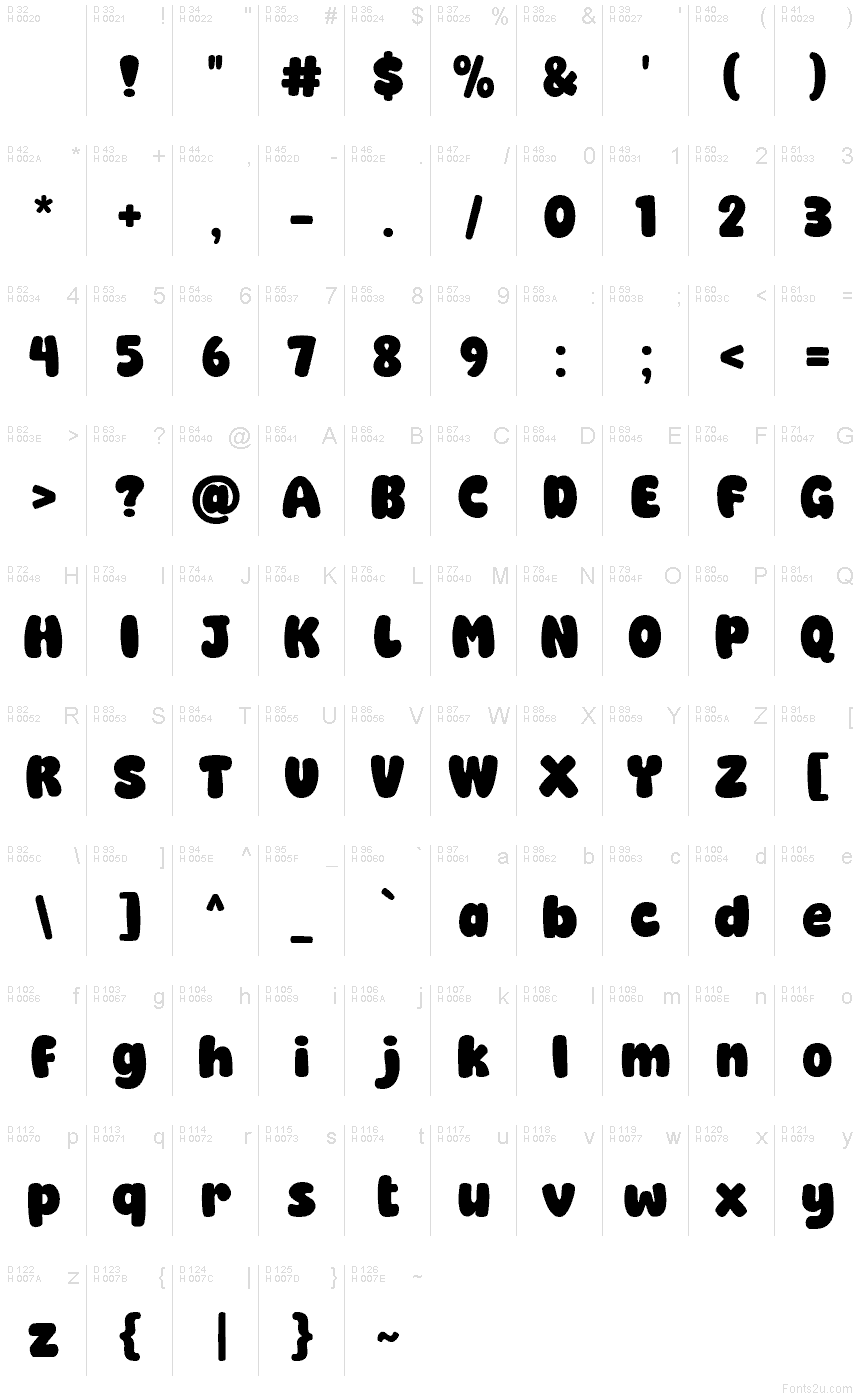
Super Greatly
Super Greatly font by fsuarez913 is a bold, cartoon-style display font that delivers a casual vibe and a friendly atmosphere. It’s bubbly and retro-inspired, in addition to being cheerful and playful. Super Greatly can bring any design layout to life with its shocking appearance and attention-grabbing letters.
Add this free handwritten typeface to any branding project, whether a logo or visual identity. You can also create unique packaging for food products, bottled beverages, or other items presented on supermarket shelves. Try adding it to comics covers or book covers in general by customizing its standard characters without altering them too much!